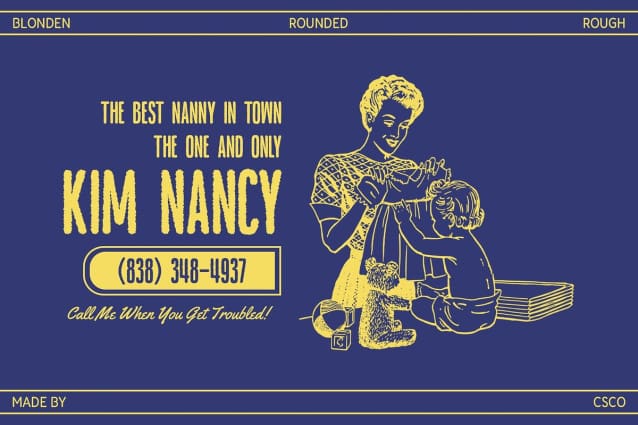
Blonden Rounded Rough Font
Blonden Rounded Rough Font:  is a modern sans serif font characterized by its condensed and rounded shapes, conveying a clean and friendly impression, making it suitable for contemporary designs and branding. The soft, rounded characteristics evoke warmth and approachability, making it an excellent choice for designs that aim to foster connection and engagement.
Efficient Use of Space The condensed form of this font allows for efficient use of space, making it ideal for various applications where readability and clarity are paramount. This efficiency doesn’t compromise style; instead, it enhances the font’s versatility across different design contexts.
Unique Rough Effect for Added Dimension Wrapped in a rough effect, this font gains visual dimension and appeal, introducing a unique, organic vibe that sets it apart from conventional designs. The texture adds character and depth, creating a playful juxtaposition between the modern design elements and the handcrafted feel.
Versatile for Contemporary Projects This rounded rough font is suitable for a wide range of contemporary designs, from branding to posters and promotional materials. Its engaging personality shines through in every project, making it perfect for creative endeavors that seek to convey a dynamic and innovative spirit.